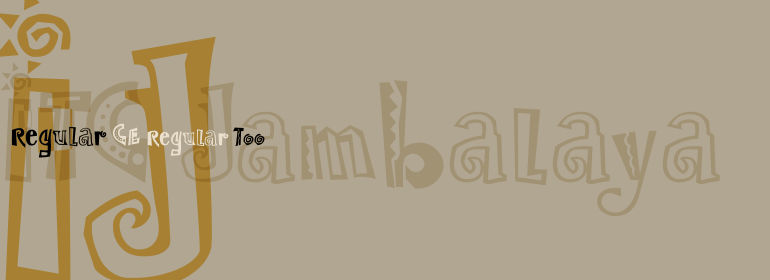
ITC Jambalaya™
ITC Jambalaya, an adventurous, energetic display typeface, is the work of New York designer Frank Marciuliano. He treated each character like its own work of art, resulting in a detailed and eclectic alphabet. ITC Jambalaya is a lively typeface perfect for funky, upbeat display applications.